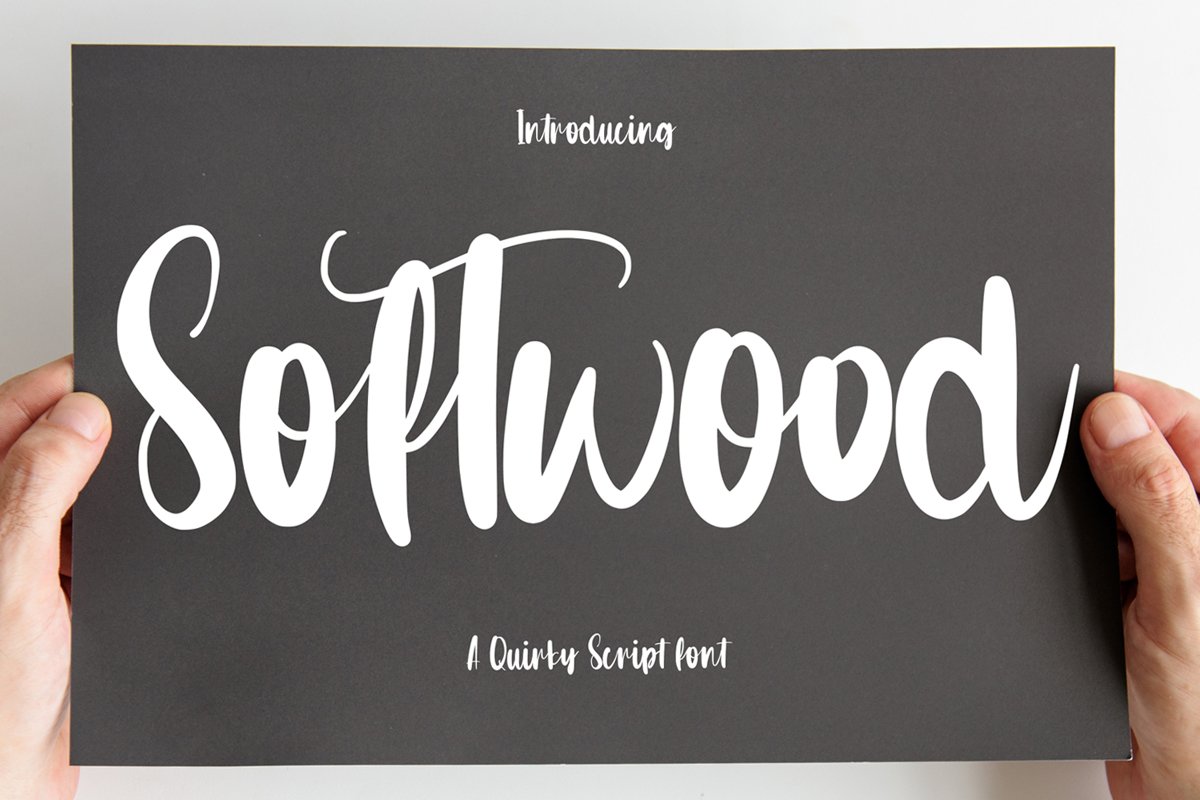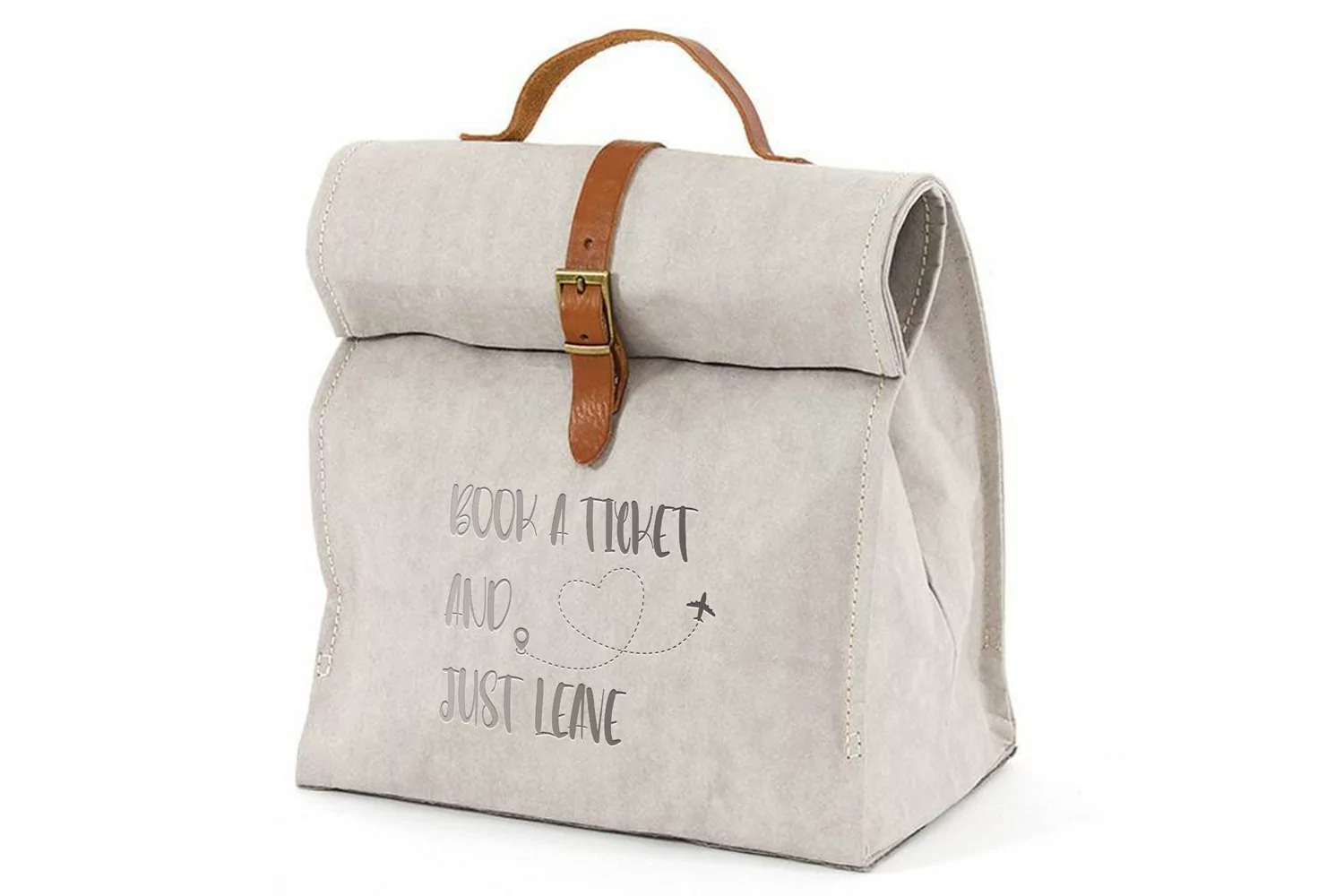
Softwood - Quirty Script Font that contain lowercase, uppercase, symbol, and also support multi language. There’s a lot ligatures in this font. This Font also comes with ligatures, alternates and many more. this font suitable for fashion, branding, catalog and other design what you want.
Softwood